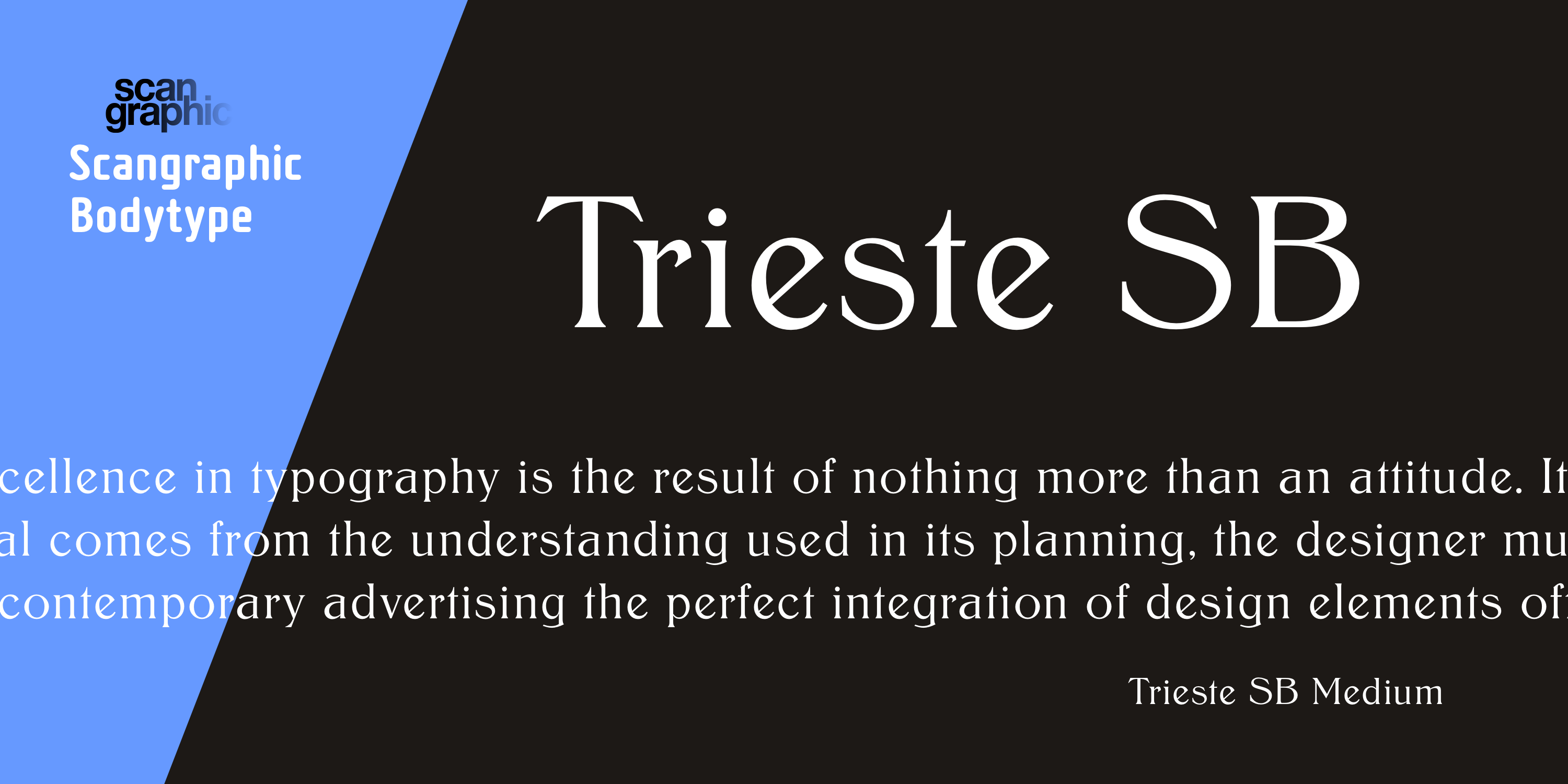
Trieste SB Font is perfect for Italian restaurant branding, Mediterranean travel marketing, luxury hospitality identity, European cultural exhibitions, fine dining establishments, architectural firm logos, classical music programs, and sophisticated international business materials. This elegantly refined typeface excels in projects requiring European sophistication and cultural authenticity where Old World charm meets contemporary professional excellence.
What makes Trieste SB Font exciting is its beautiful embodiment of Italian design heritage through gracefully proportioned letterforms that capture the elegance and cultural richness of Mediterranean typography traditions. The font features refined characters with classical proportions and subtle architectural details that convey sophistication, cultural depth, and timeless European elegance. Its cultured character makes it perfect for brands seeking to communicate heritage, quality, and authentic European refinement.
Trieste SB Font family includes multiple weights and stylistic variations that enhance its European appeal while providing comprehensive design flexibility for international projects. The family typically offers light, regular, medium, semibold, and bold weights, along with corresponding italic styles and classical ornaments that complement Mediterranean and European design themes perfectly.
Whether you're developing luxury hospitality branding, creating cultural tourism campaigns, or designing fine dining marketing materials, Trieste SB Font Free Download provides the perfect European solution for projects celebrating Mediterranean culture and sophistication. This font's classical elegance and cultural authenticity make it essential for brands connecting with audiences who appreciate European heritage and refined lifestyle experiences.
The carefully crafted letterforms and classical proportions of Trieste SB Font create immediate associations with Italian artistry and European cultural sophistication while maintaining excellent readability across various applications. Its distinctive European personality and Mediterranean charm make it an invaluable tool for designers working with hospitality, tourism, and cultural brands. Download Trieste SB Font today and bring the timeless elegance of Italian design heritage to your creative projects with this authentically European typeface that perfectly captures Mediterranean sophistication and cultural refinement.